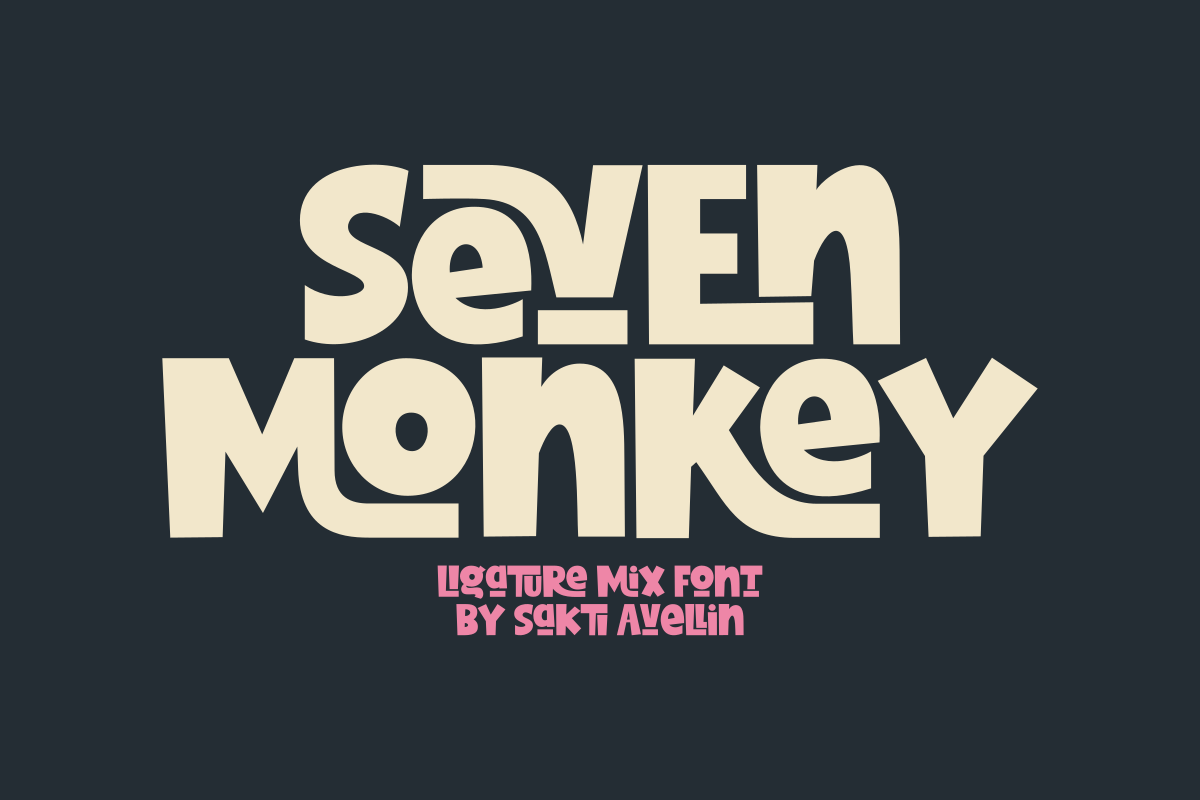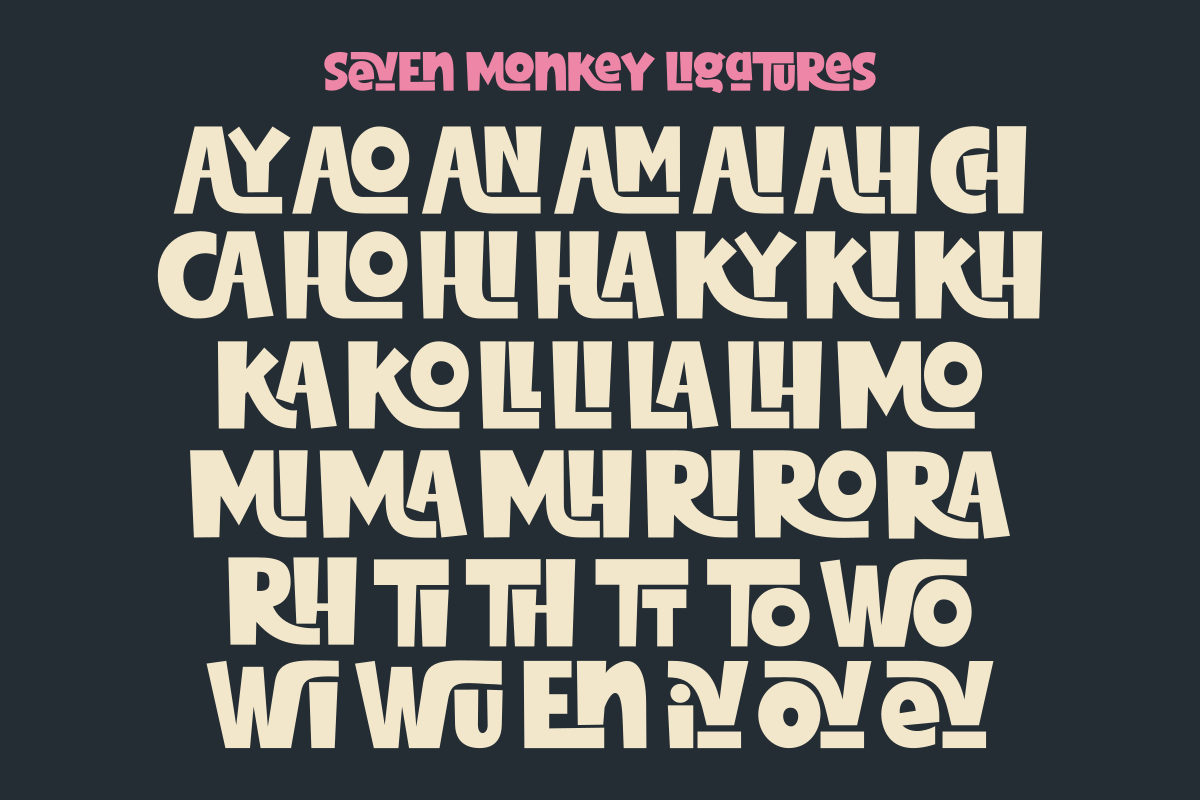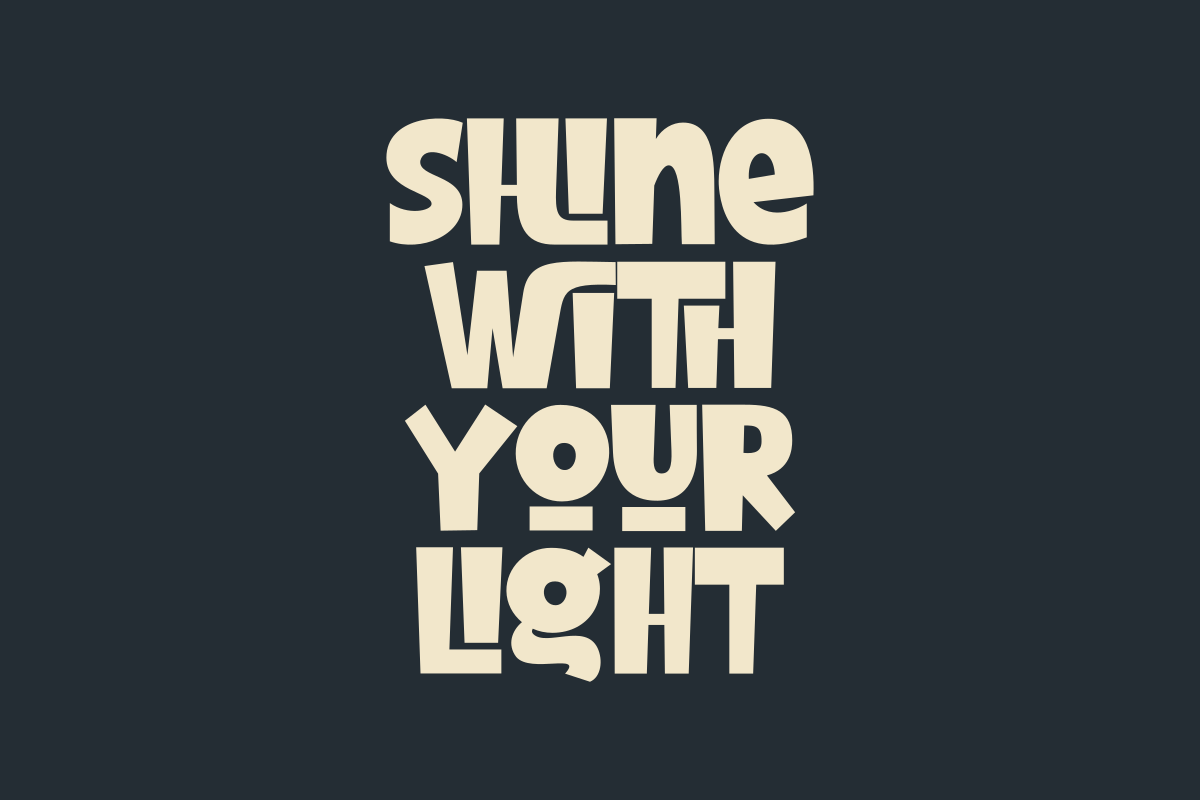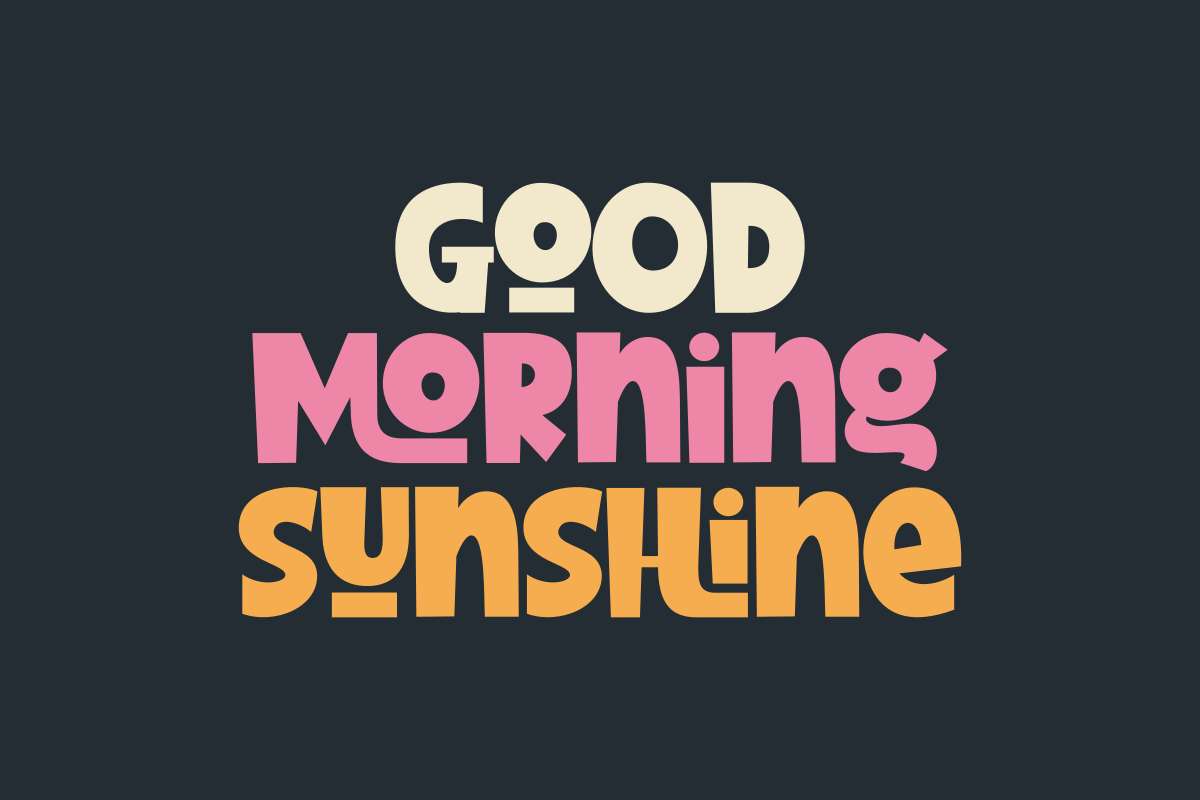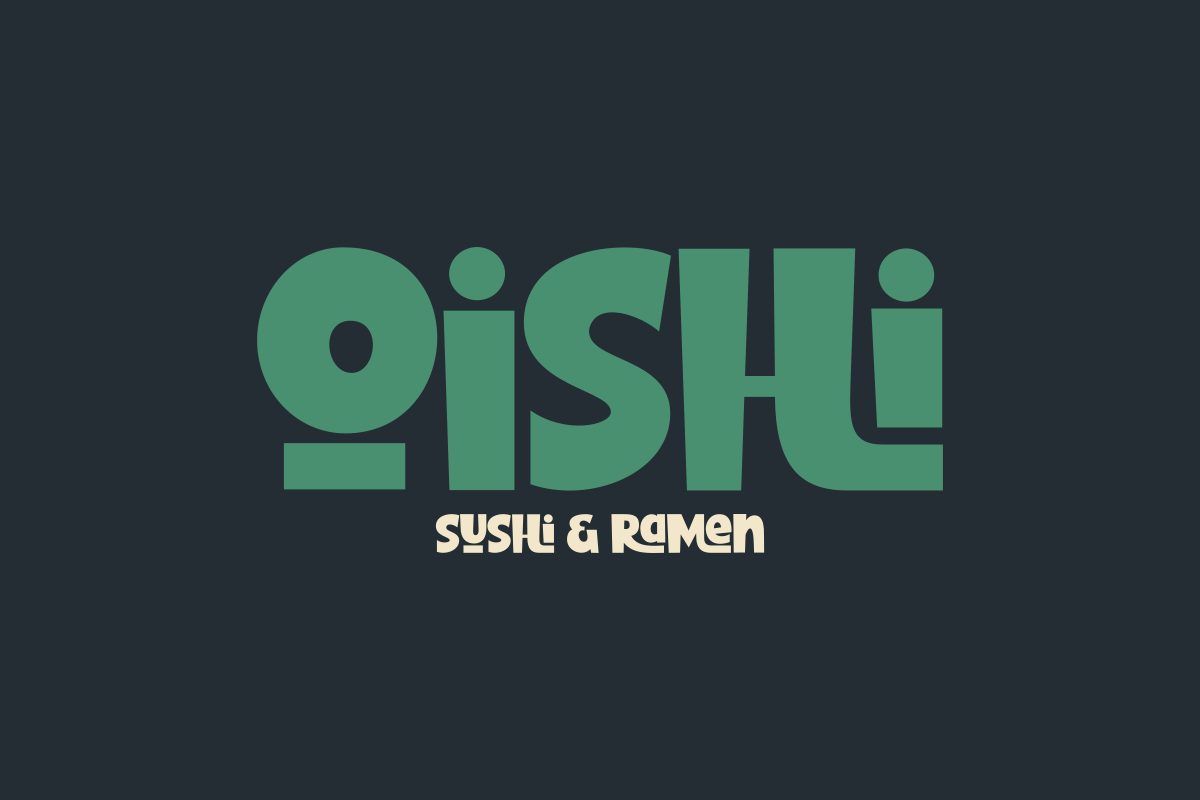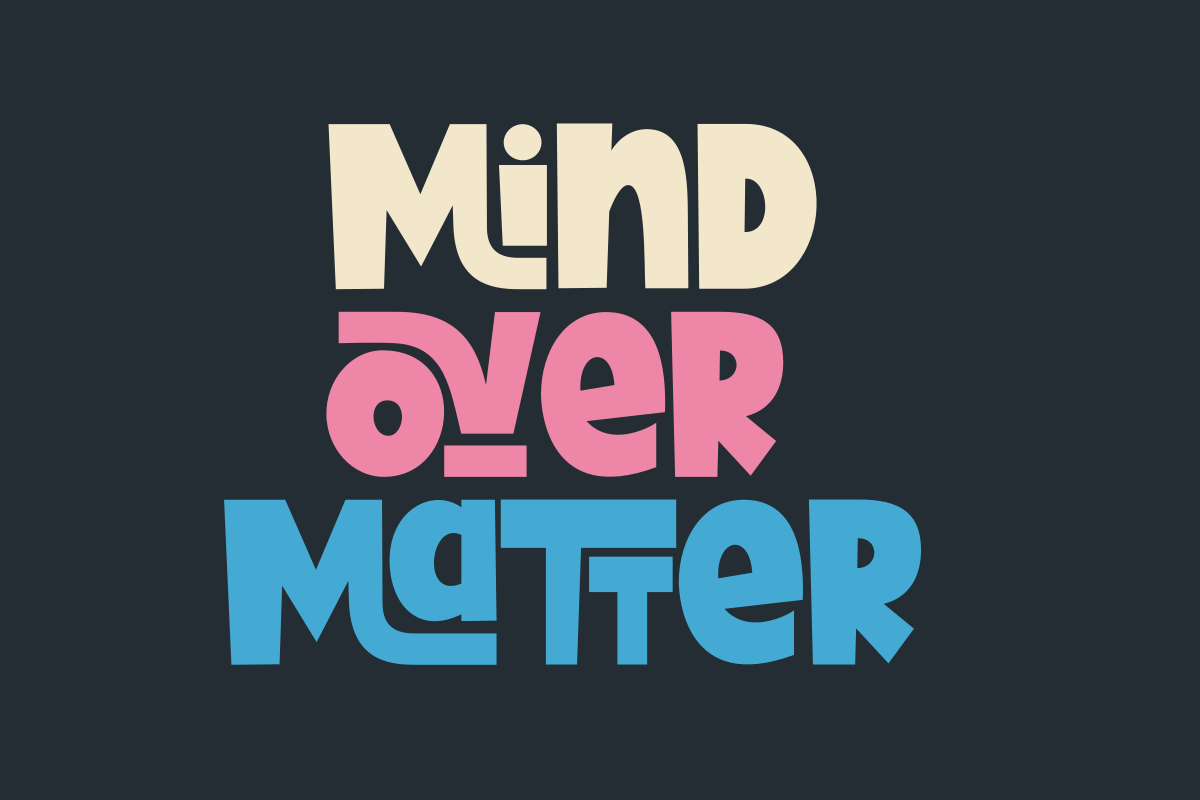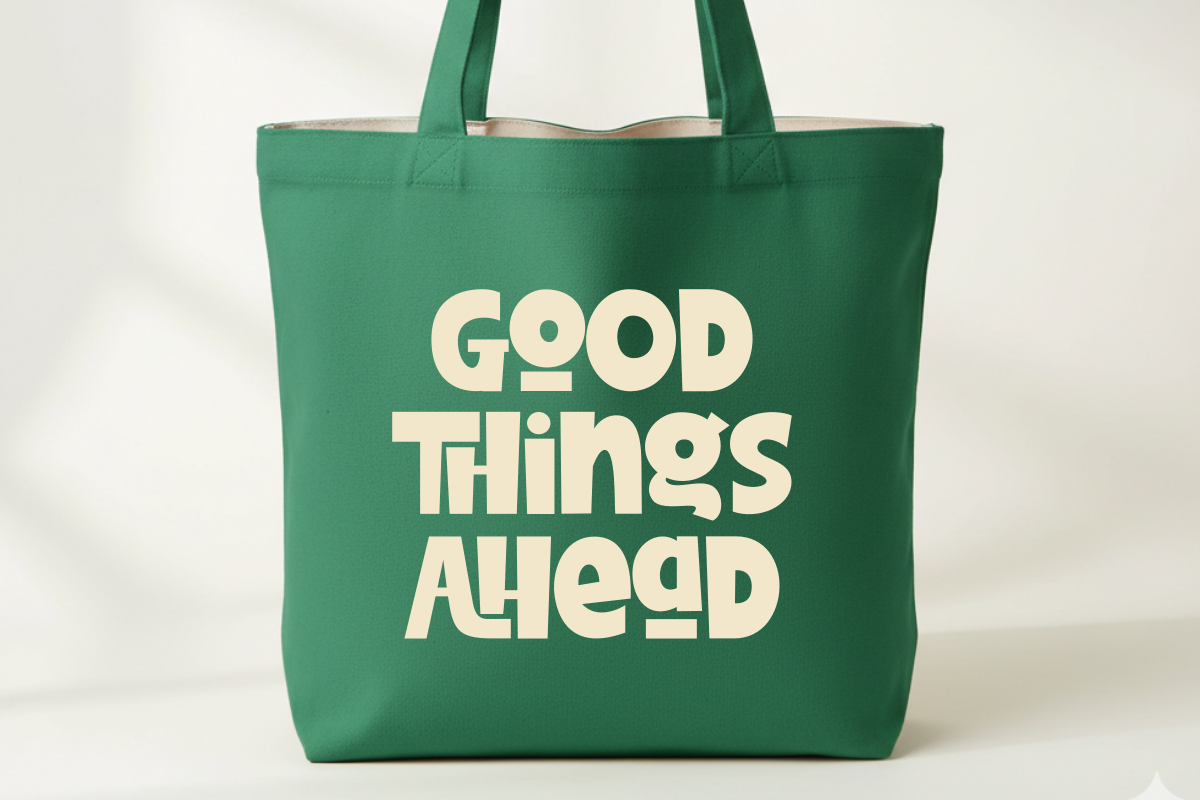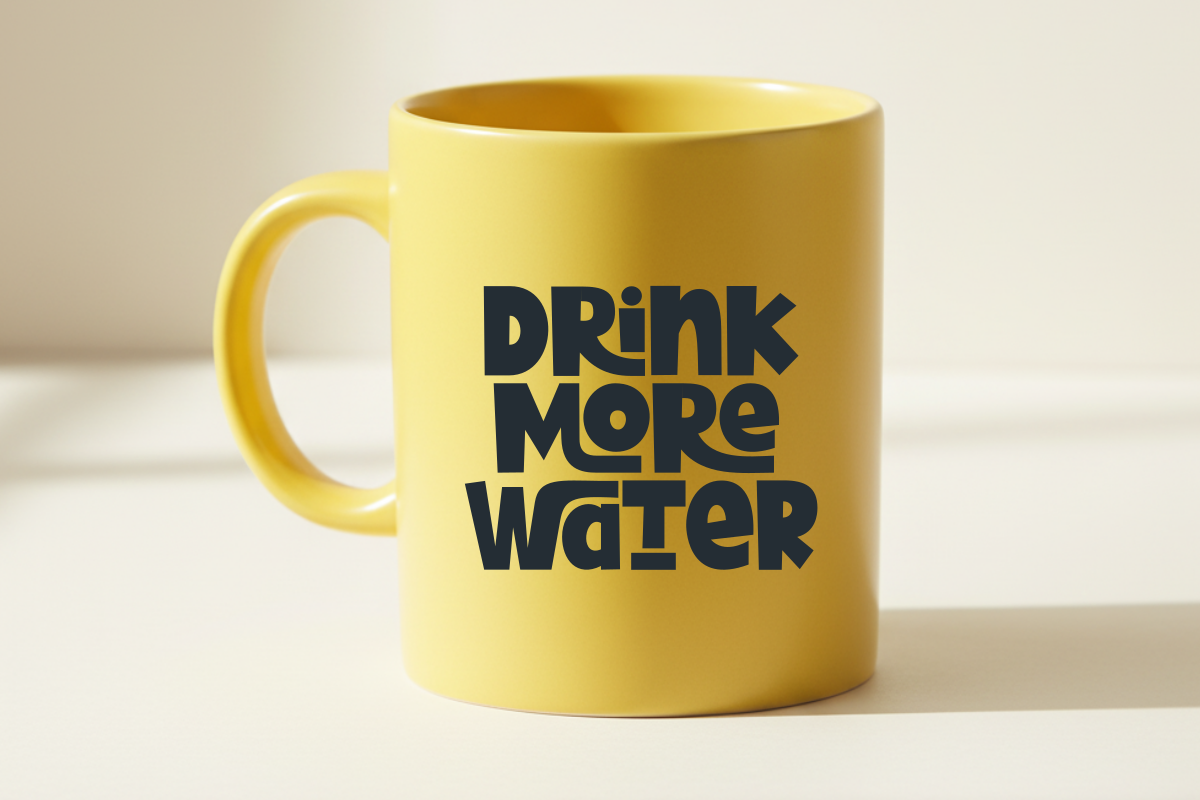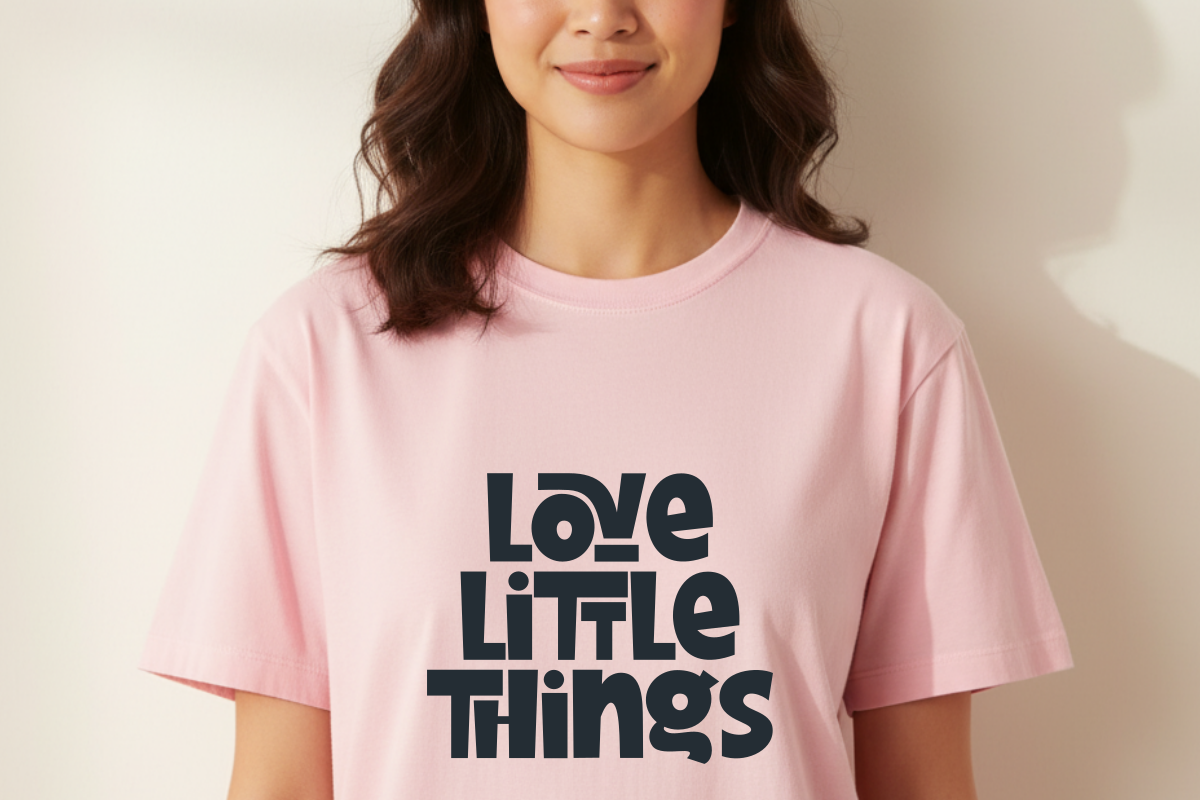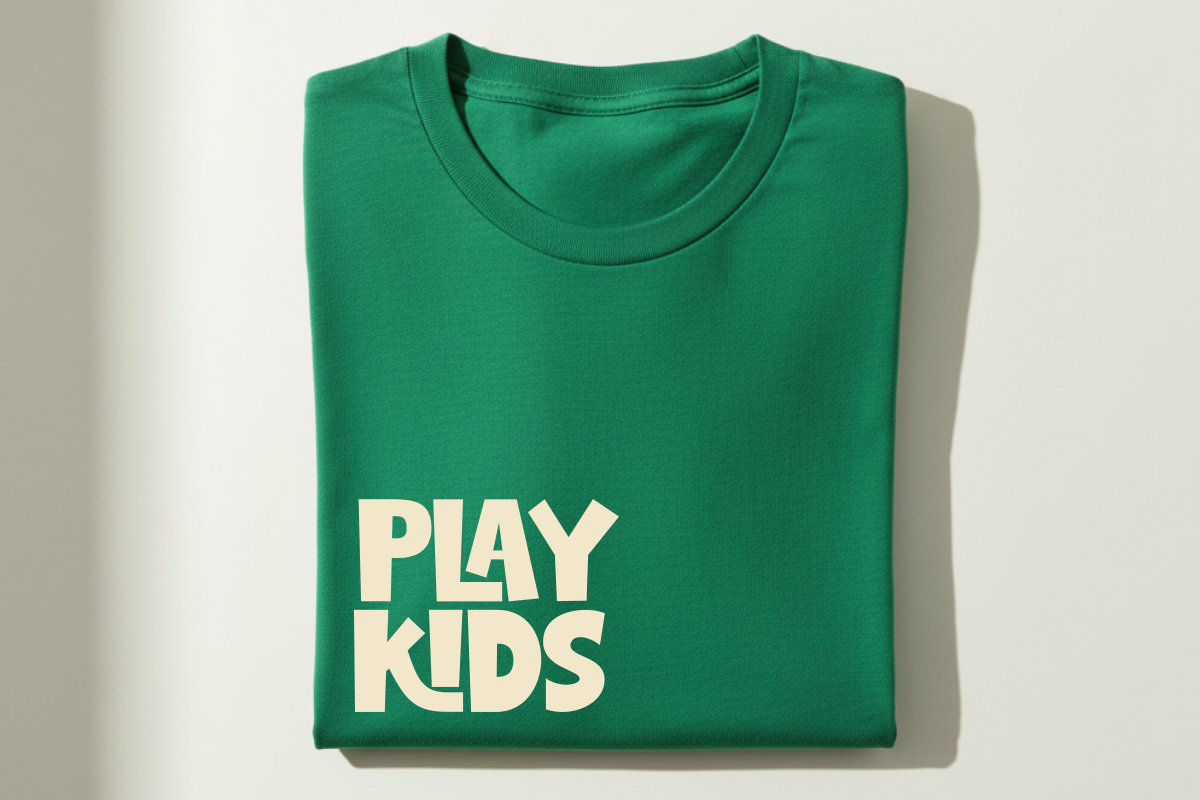
Seven Monkey - Ligature Mix Font
Seven Monkey is a bold, high-impact ligature mix font designed to bring a soulful and rhythmic retro energy to your creative projects. This chunky display typeface features unique interlocking letterforms and a playful, groovy bounce, making it an essential choice for retro branding, funky t-shirt prints, vintage posters, and eye-catching social media graphics. Its liquid-like silhouette and stylistic ligatures ensure it stands out as a powerful decorative font for headlines and product packaging, perfect for designers looking for a mix of 70s charm and modern aesthetic funk. Elevate your designs with the vibrant and nostalgic spirit of Seven Monkey!